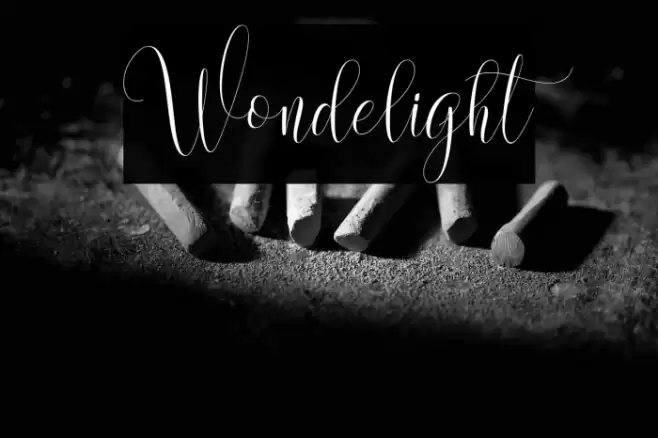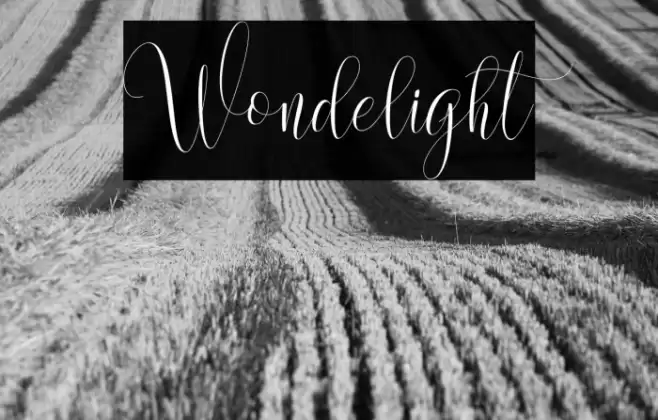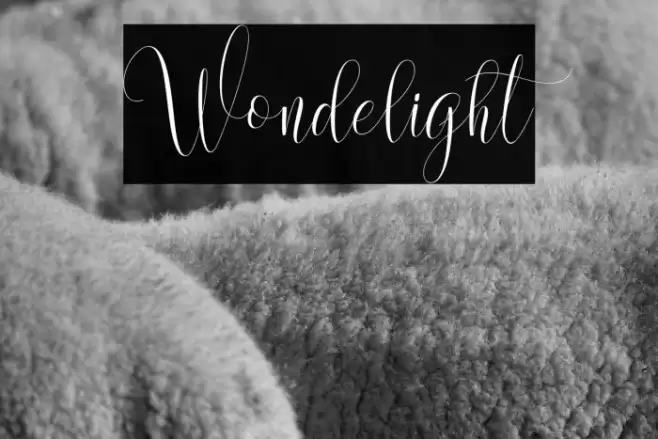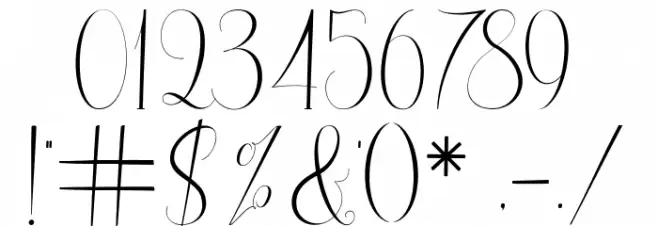
Wondelight Font
Wondelight Description
This elegant script font features flowing, interconnected letters with a graceful and sophisticated appearance. The uppercase letters are tall and slender, with sweeping curves and delicate flourishes that add a touch of luxury. The lowercase letters maintain a consistent style, with smooth transitions and a slightly more compact form. The numerals are stylish and maintain the same elegant curves as the letters, ensuring a cohesive look. Special characters are designed with the same attention to detail, making them perfect for decorative purposes. This font exudes a sense of refinement and is ideal for projects that require a touch of class and elegance.
An elegant script font with flowing, interconnected letters and graceful flourishes from Regular fonts.
- Proposed Projects: Ideal for wedding invitations, luxury branding, elegant stationery, and high-end product packaging.
- Overall Style: Elegant
- Use Case: Logos, Invitations, Decorative text